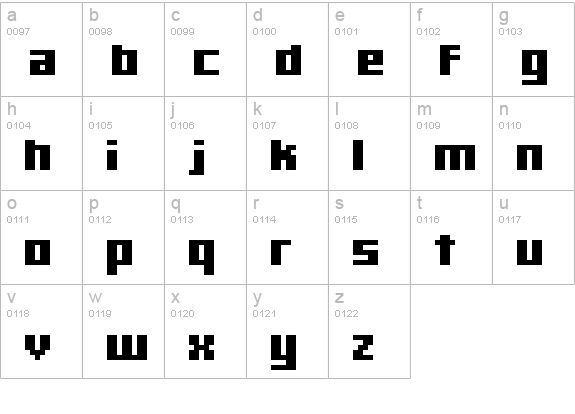
Hooge 06_66 font is a modern and stylish typeface that exudes elegance and sophistication. Its sleek lines and clean design make it perfect for a wide range of design projects, from branding to editorial design. The font's geometric shapes and sharp angles give it a contemporary feel that is sure to make your text stand out. What's even better is that Hooge 06_66 font is available for free download at FontsMarket.com. This means you can easily access this versatile and eye-catching font for all your creative needs without any cost. Whether you're working on a personal project or a professional design, Hooge 06_66 font is a great choice that will elevate your work to the next level. Download it today and add a touch of sophistication to your designs.